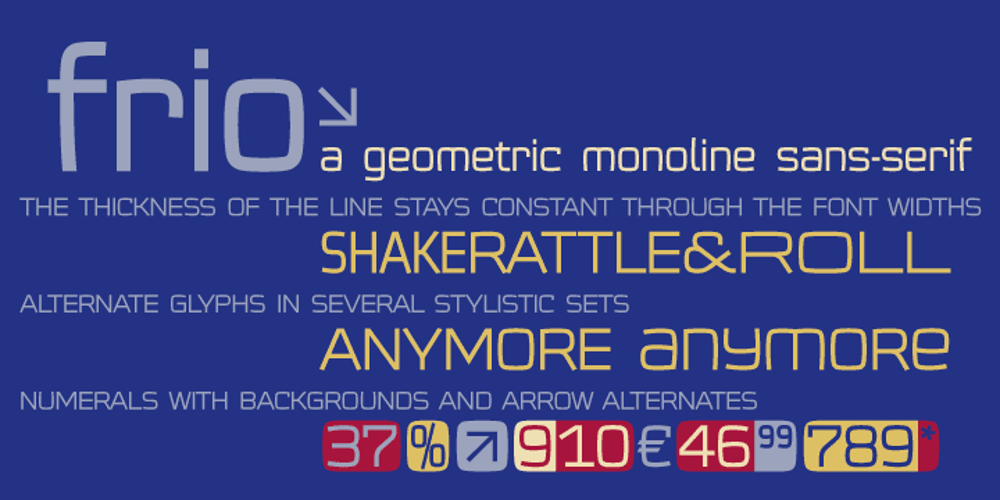
Frio Font Family was designed by Kristians Šics and published by Lamatas un Slazdi. Frio contains 30 styles and family package options. Frio is a geometric monoline sans-serif typeface consisting of 15 styles: 5 weights and 3 widths plus italics. Clean, neutral and technical, Frio was inspired by the form of super ellipse and Eurostile by Aldo Novarese. The font contains stylistic and contextual alternates, ligatures, discretional ligatures for use in German, ornaments and other OpenType features. It supports all the European languages using Latin alphabets. The main thing that sets it apart from the other typefaces is a possibility of using simple typing combined with stylistic sets to add colored backgrounds to numerals.